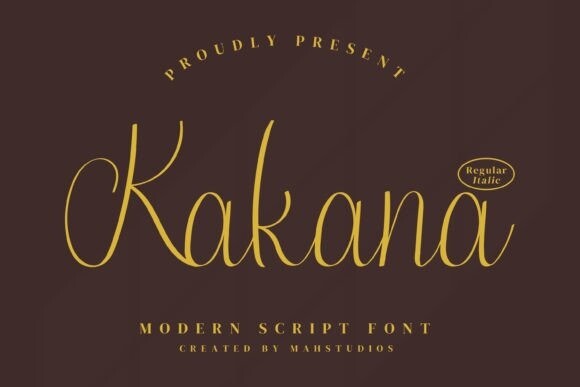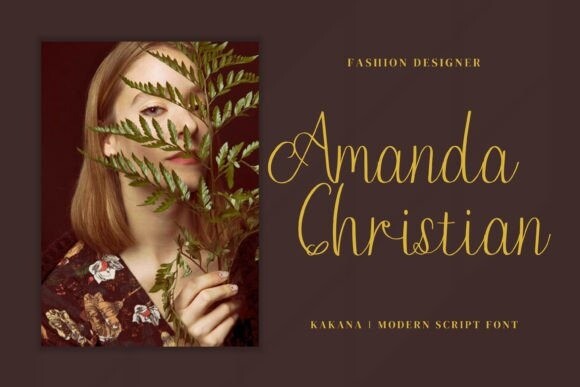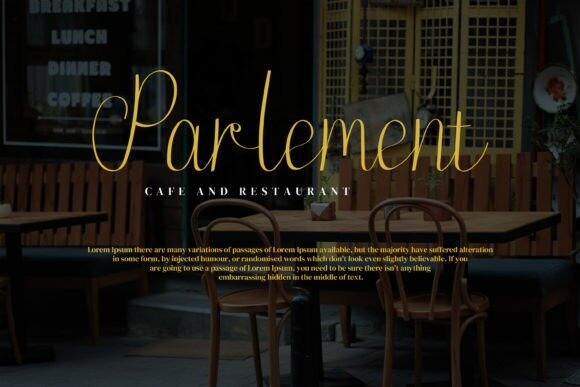
Kakana Font
Kakana is an elegant and beautiful handwritten font. This font features fluid, cursive letterforms that create a natural and personal feel. Perfect for wedding invitations, greeting cards, and designs that require a touch of elegance and charm. The delicate, hand-written letters of “Kakana” will add a touch of romance and beauty to any project.